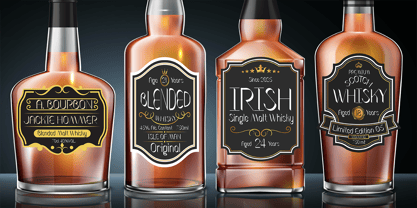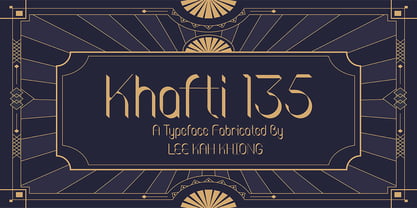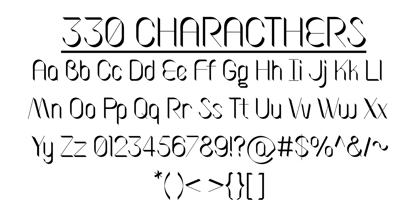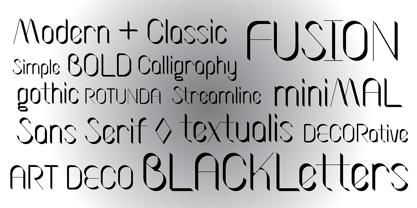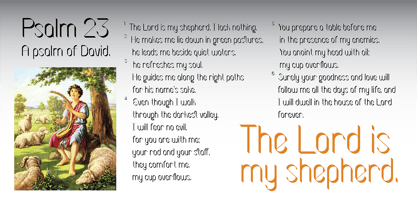
Khafti 135
by Kah Khiong Design
The Khafti 135 Font Family was designed by Lee Kah Khiong and published by Kah Khiong Design. Khafti 135 contains 1 styles. More about this family
Khafti 135 is second born in the Khafti Family and twins font of the Khafti 45. It have very similar characteristic to Khafti 45 font. It have the fusion of art deco and gothic style give a unique recognizable looks. The distinctive stroke of Khafti 135 font, mimicking a flat tip or chisel tip, which give an unique 135 degree slope. The contrasting thickness, thick and thin, of the stroke further enhancing the art deco characteristic in it. It looks like blackletters from Medieval time, but also looks like a modern 20s and 30s. Suitable for any headline, menu, label and poster. Ocassion like festival, anniversary, wedding and birthday also can use Khafti 135 to create a special theme and feels.
Kah Khiong Design, founded by Lee Kah Khiong, is an illustrator and graphic designer based in (Miri, Sarawak) Borneo site of Malaysia and has been creating visual, graphic as well as illustration for years. Creating typefaces wasn’t my expertise, but my experience with graphic design plus my passion, I am determined to venture into the world of typography to explore, experience, experiment & create new fresh typefaces.